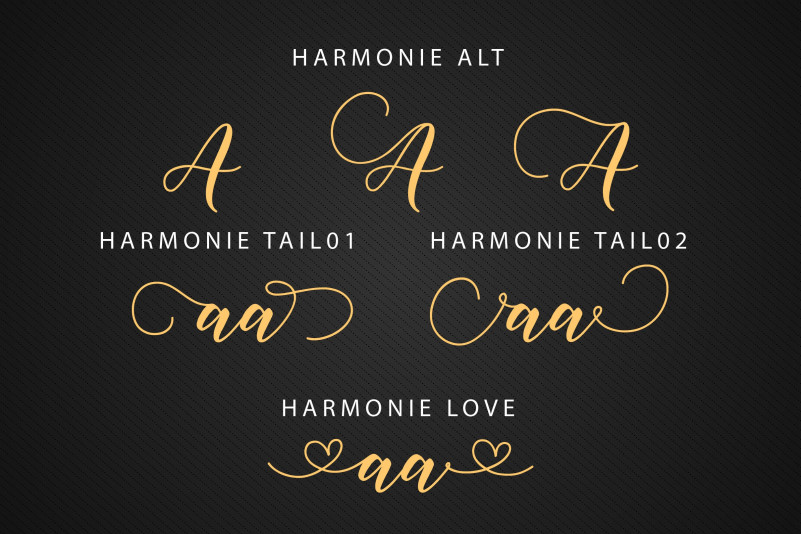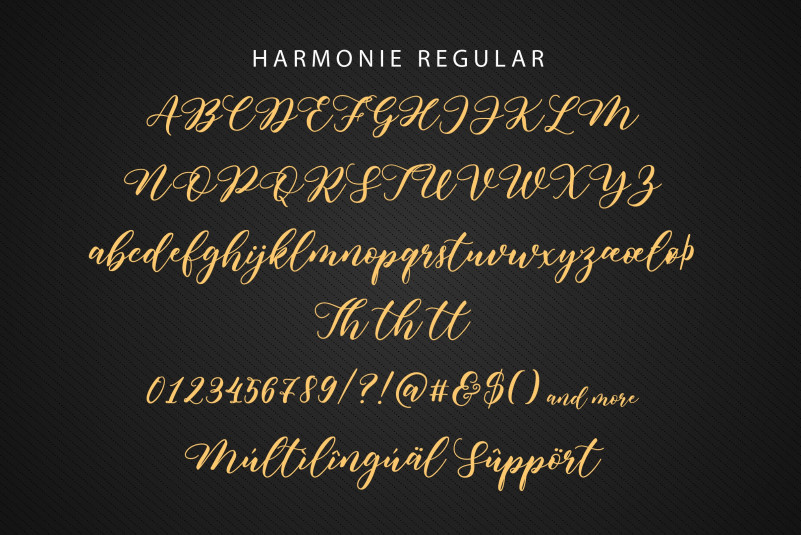
Harmonie Font
Harmonie Calligraphy Font, this font was created for all forms of business and branding such as clothing, logos, skate boards and others according to your needs.
Harmony Font works in Canva! To use tails and middle connectors, there is no need to use software that supports OpenType, because we have made them separately so it is very easy to use.
– Uppercase, Lowercase, Numeral & Punctuation
– Alternate Letters, Ligature & Swash/Tail
– Multilingual & PUA Encoded